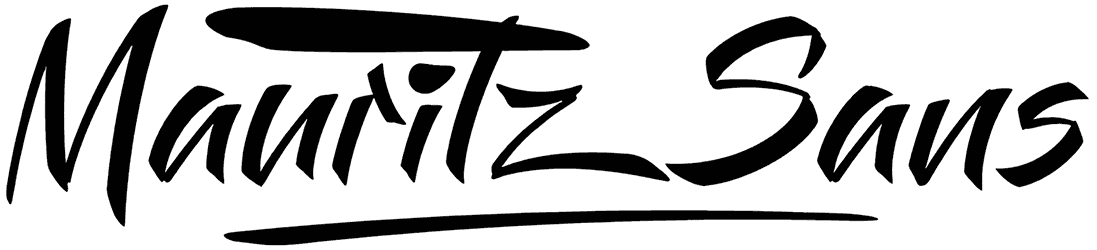
Mauritz Sans Font
Mauritz Sans is a script font that is totally versatile and is guaranteed to add an artistic touch to street posters, logos, and digital banners.
The good news about this ninja font is that it comes with 4 distinctive styles, so it gives your artwork an acceptable variety and you can easily neglect the lack of numbers. If creating a sense of clutter, jauntiness, and innovation really matters to you, this brush font would be ideal for you.
http://mn.sg/mauritzUse underscore _ anywhere in a word to make a swash.
Example: Sign_ature
Use multiple underscores for different swashes.
Example: Supe______rcars